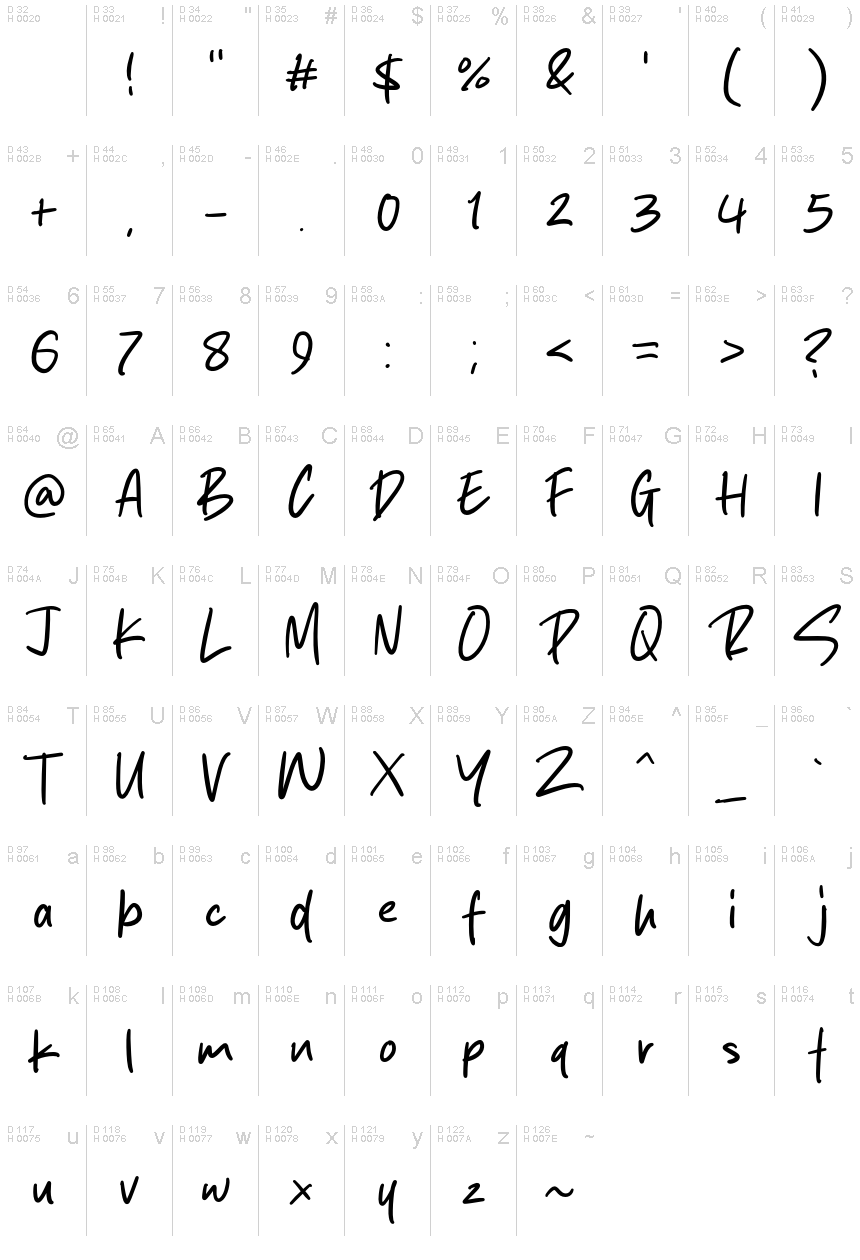
Rockets Kite
Rockets Kite font belongs to the handwritten font category, designed by MJType. Its distinct handwritten style gives it a casual, yet purposeful feel that is perfect for adding a personal touch to any project.
Rockets Kite Font is perfect for Final Graphic, poster, logos & branding, invitation design, stationery, wedding designs, social media posts, advertisements & product designs. It's an excellent choice for signature or watermark for photography.